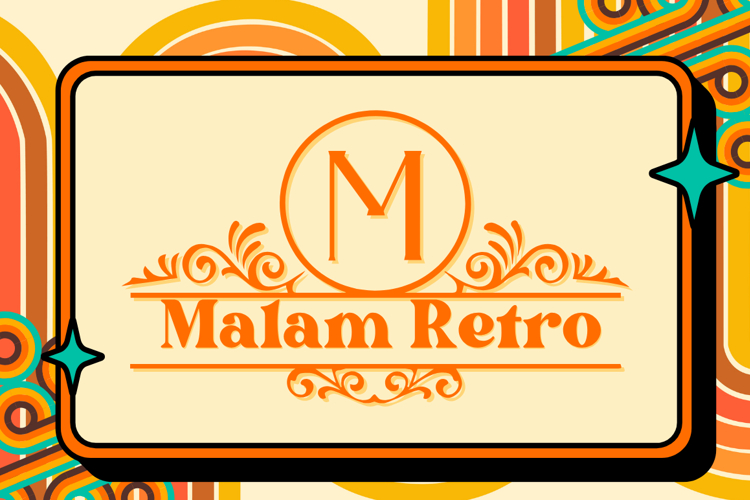
Introducing Malam Retro — a vintage-inspired monogram font that turns any letter into a ready-made emblem. Each glyph places an initial inside a circle with ornamental swashes and a classic baseline bar, delivering an instant retro badge for signage, labels, and packaging. You can also type "." or "," to print the frame without a letter for layered compositions or icon drops. Clean vector outlines make it friendly for cutting machines and print workflows.